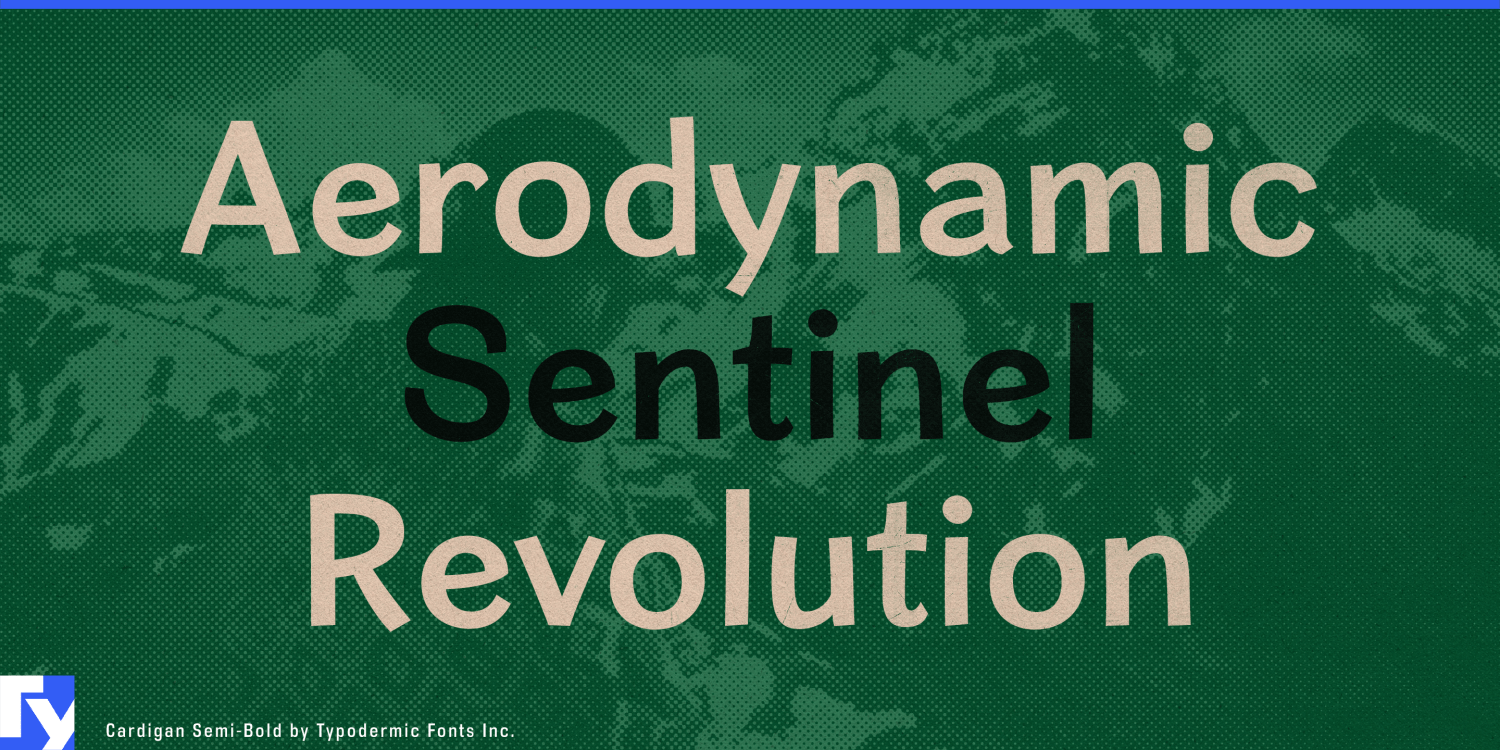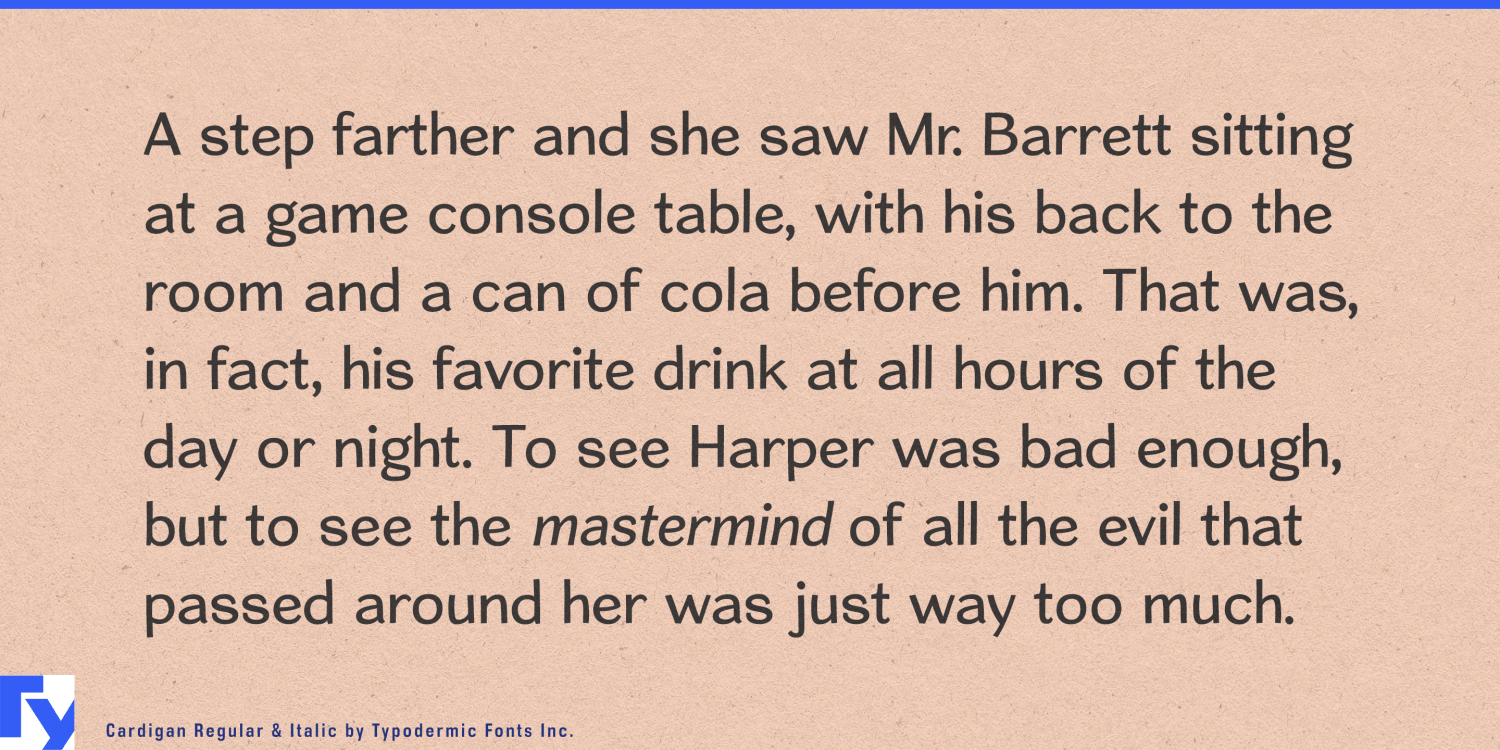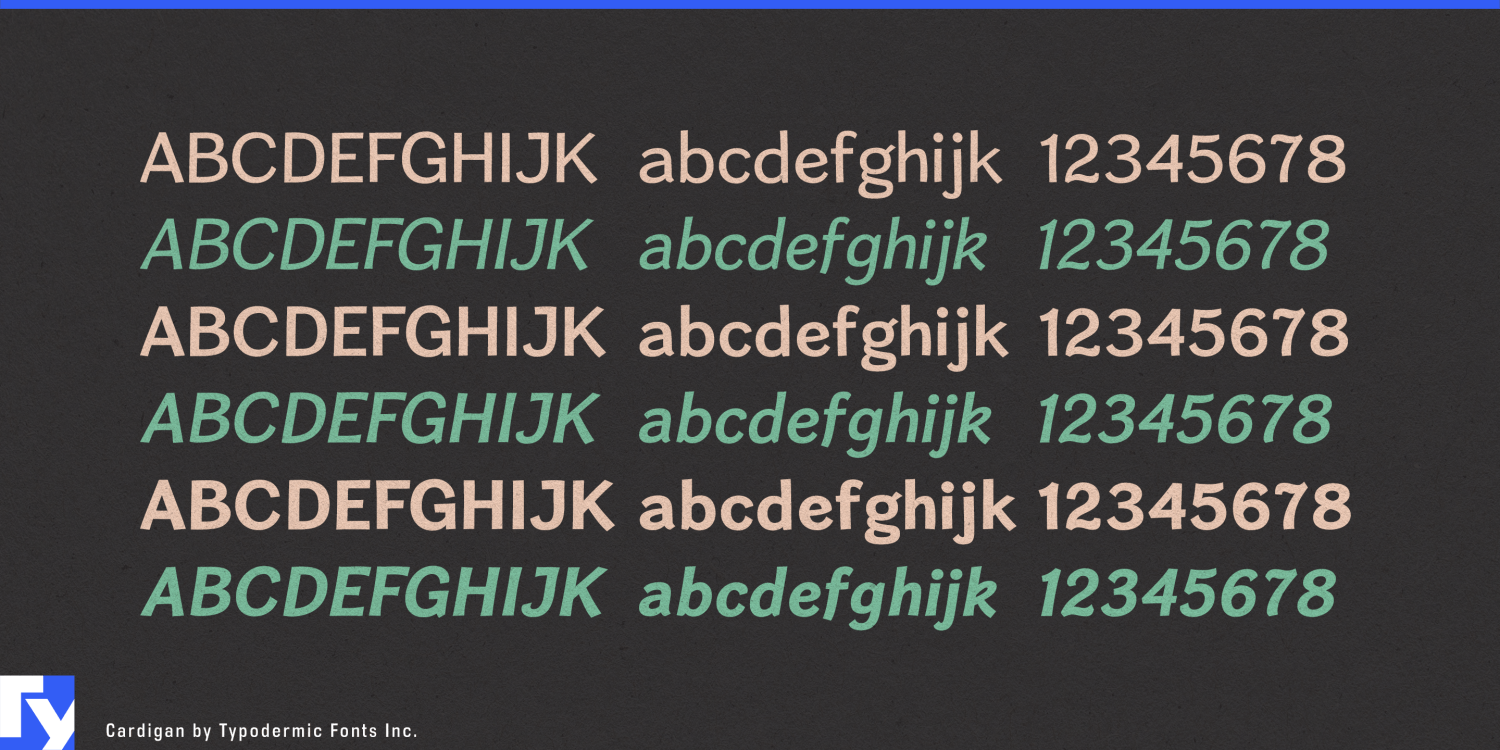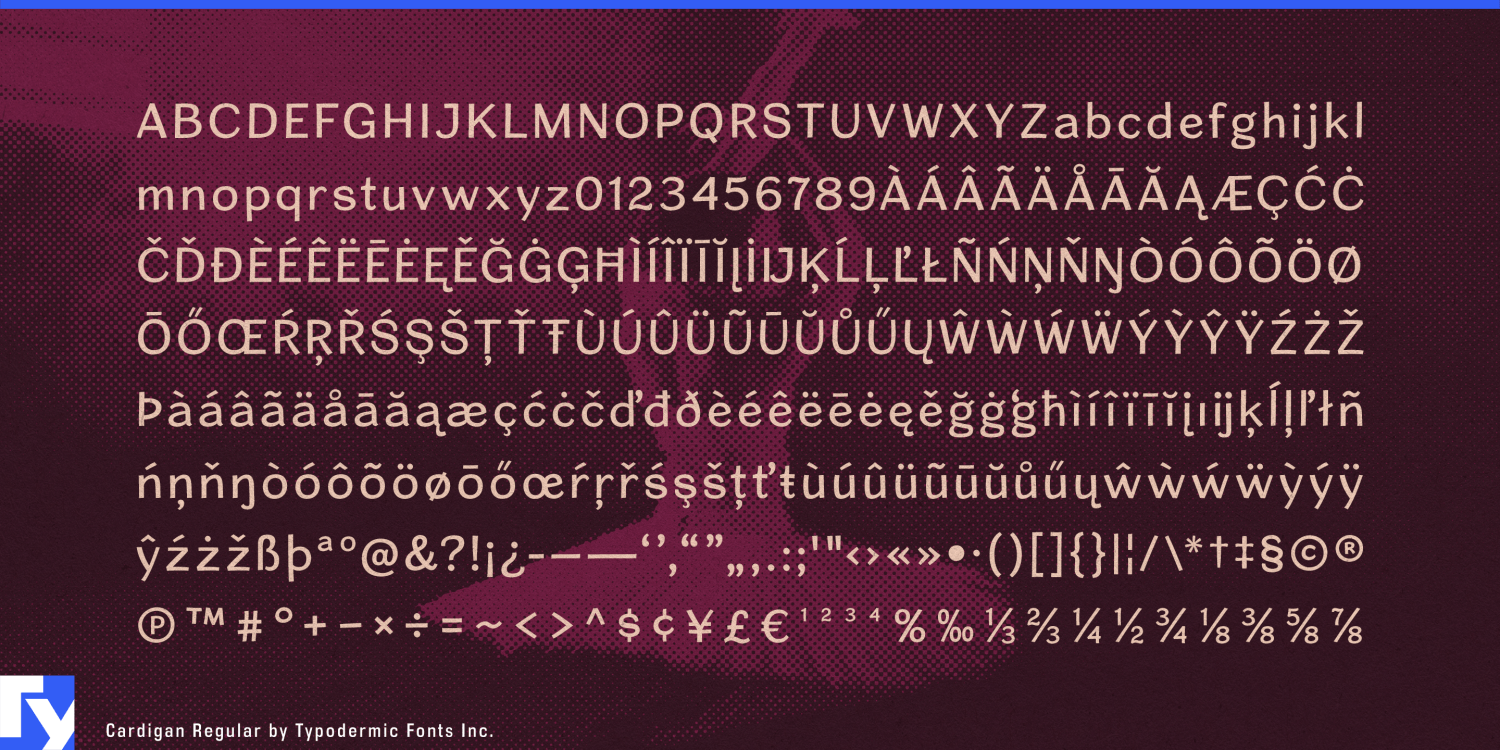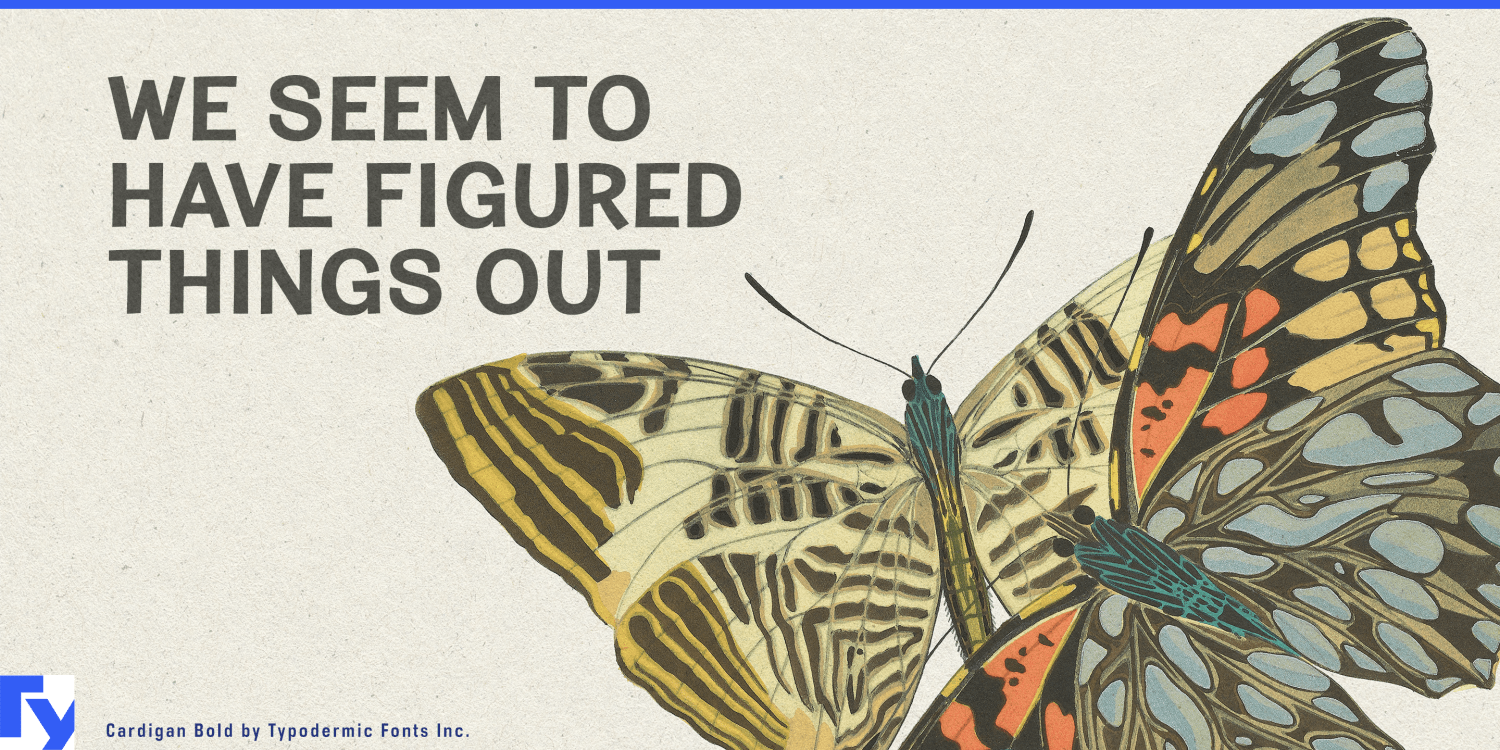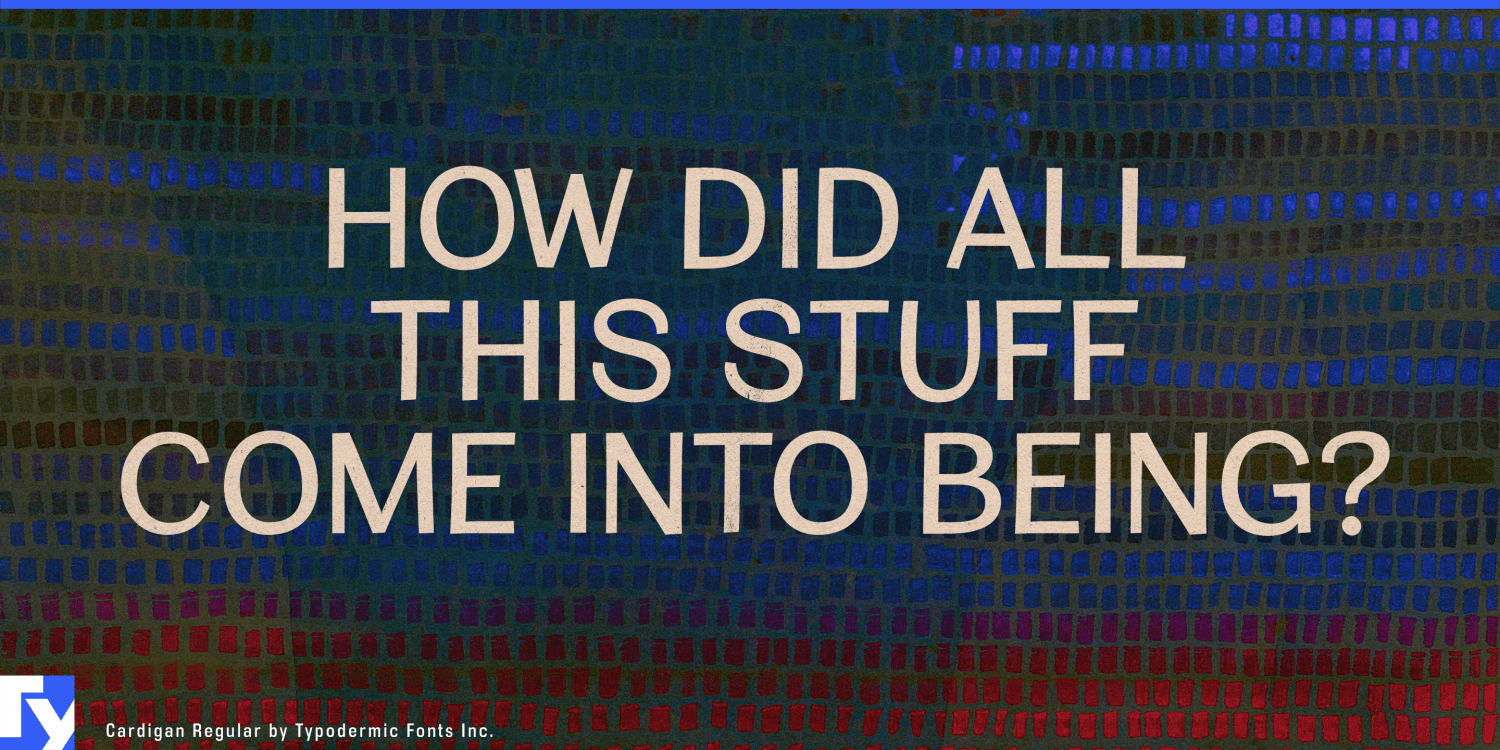
Cardigan
Font Family by Typodermic
Cardigan is for long explanations that should feel like guidance rather than instructions.
Organizations often know how to sound approachable in a headline, then become institutional as soon as the real explanation begins. A conspicuously friendly display face may not survive several paragraphs, while a neutral corporate sans can make a personal decision feel like paperwork. Cardigan was designed around conventional, readable forms with enough looseness to remain informal through sustained text. The personality does not disappear when the copy gets longer.
Active-adult and independent-living communities are a natural fit. Choosing a new home can involve weeks of comparison and substantial reading: apartment descriptions, community guides, dining and wellness programs, move-in information and stories about everyday life. Cardigan can introduce a residence type or amenity with an easygoing heading, then continue directly into the explanation underneath it.
Retirement and employee-benefits education presents a similar problem. Pension options, workplace benefits, beneficiary choices and retirement transitions can become complicated quickly, yet the reader is making personal decisions rather than studying finance professionally. Cardigan can handle enrollment guides, retirement-transition books, pension explainers, financial-wellness articles and member newsletters without slipping into the tone of a policy manual.
Home-energy programs create a newer version of the same challenge. Heat pumps, EV charging, solar and battery systems, time-of-use rates and retrofit incentives increasingly require homeowners to understand unfamiliar equipment and pricing before making expensive decisions. Cardigan can carry homeowner guides, rebate explanations and installation-process pages while more neutral typography handles bills, meter readings and account interfaces.
Credit unions, building societies and cooperative financial organizations can use the same voice for first-home guides, mortgage explainers, fraud-prevention material, retirement articles and member magazines. Multifamily housing operators can extend it through move-in books, building guides, amenity descriptions, maintenance explanations and resident publications.
Cardigan is not simply a friendly sans-serif. Its useful trick is staying friendly after the headline is over.